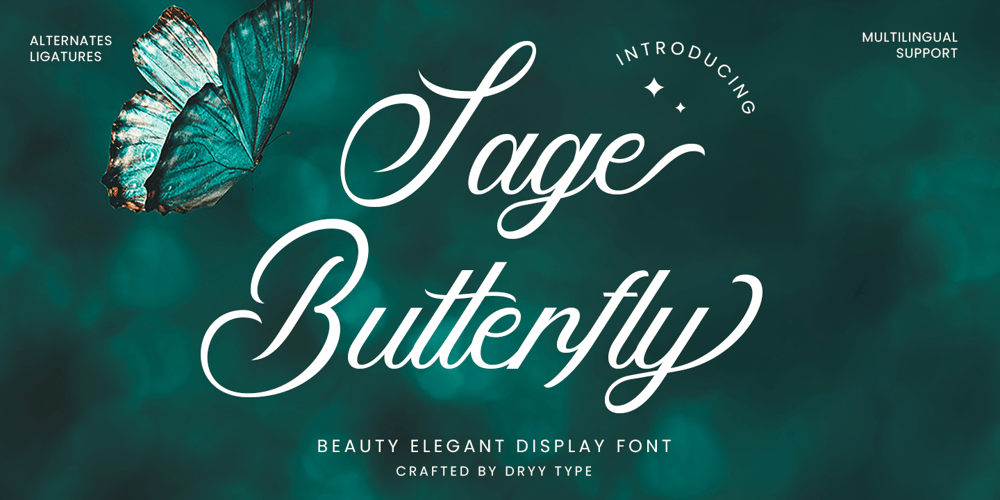
Sage Butterfly Font Family was designed by Rian Dryana and published by Dryy Type. Sage Butterfly contains 1 styles and family package options. Sage Butterfly font is a Script Elegant Display font, This font I created is meaningful & very versatile, it goes well with various designs, elevating them to the highest level. Add this font to your favorite creative ideas and see how it comes to life!Features : Uppercase, Lowercase, Alternaates, Ligatures, Numerical, & Multilingual Support.